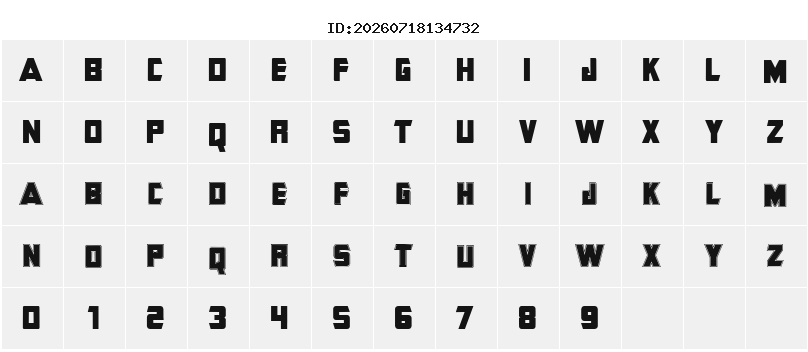
• Font Name: Captain America
• Designer: P. A. Vannucci
About Captain America.ttf
Captain America.ttf is a modern, elegant sans-serif font designed for ultimate readability and visual harmony. Perfect for branding, headlines, web design, and print materials.